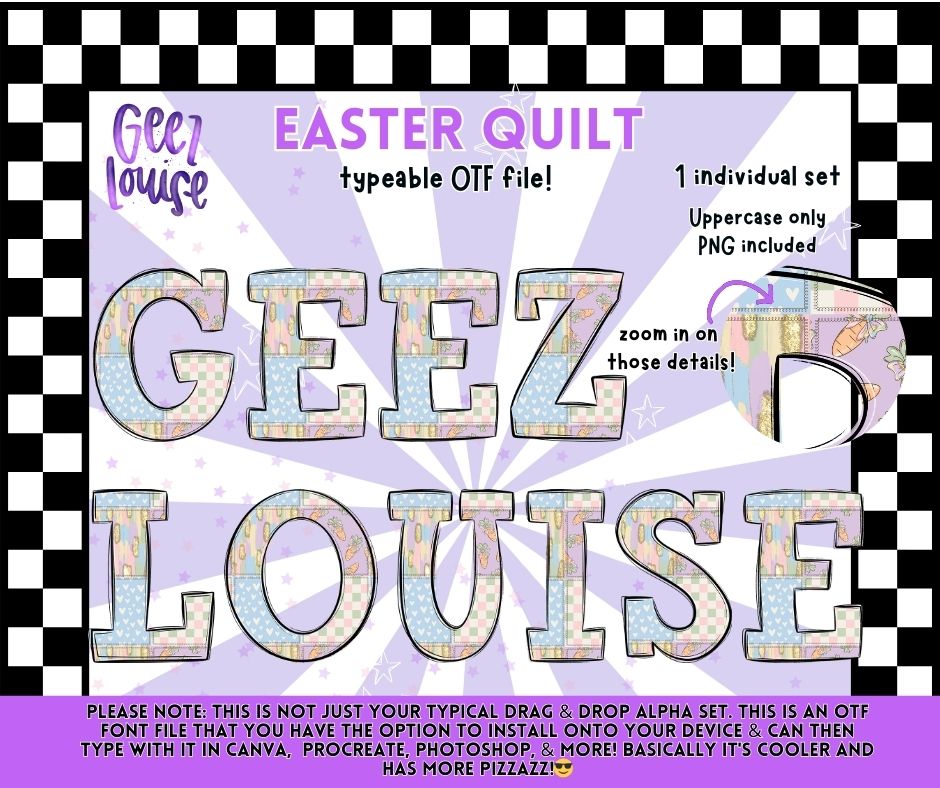
Easter Quilt OTF Font | Uppercase Typeface + PNG | Patchwork Alphabet
Meet Easter Quilt — a soft, patchwork-inspired alphabet with cozy quilt textures and spring details 🐰🌸
Perfect for Easter projects, spring apparel, kids designs, boutique graphics, and seasonal décor with a handmade feel.
• Uppercase letters only